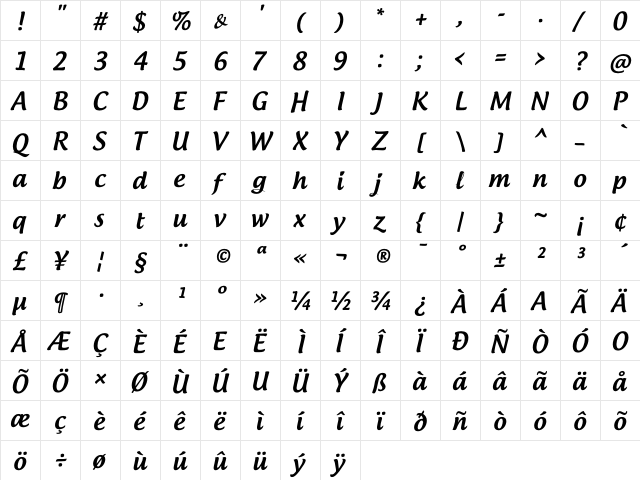
Androgyne Regular
| Foundry | Dimitri Castrique |
| Designer | Dimitri Castrique |
Design Context for Androgyne Typeface
Androgyne offers clean, dependable letterforms without strong stylistic allegiance, making it a practical choice for designers who need flexibility.